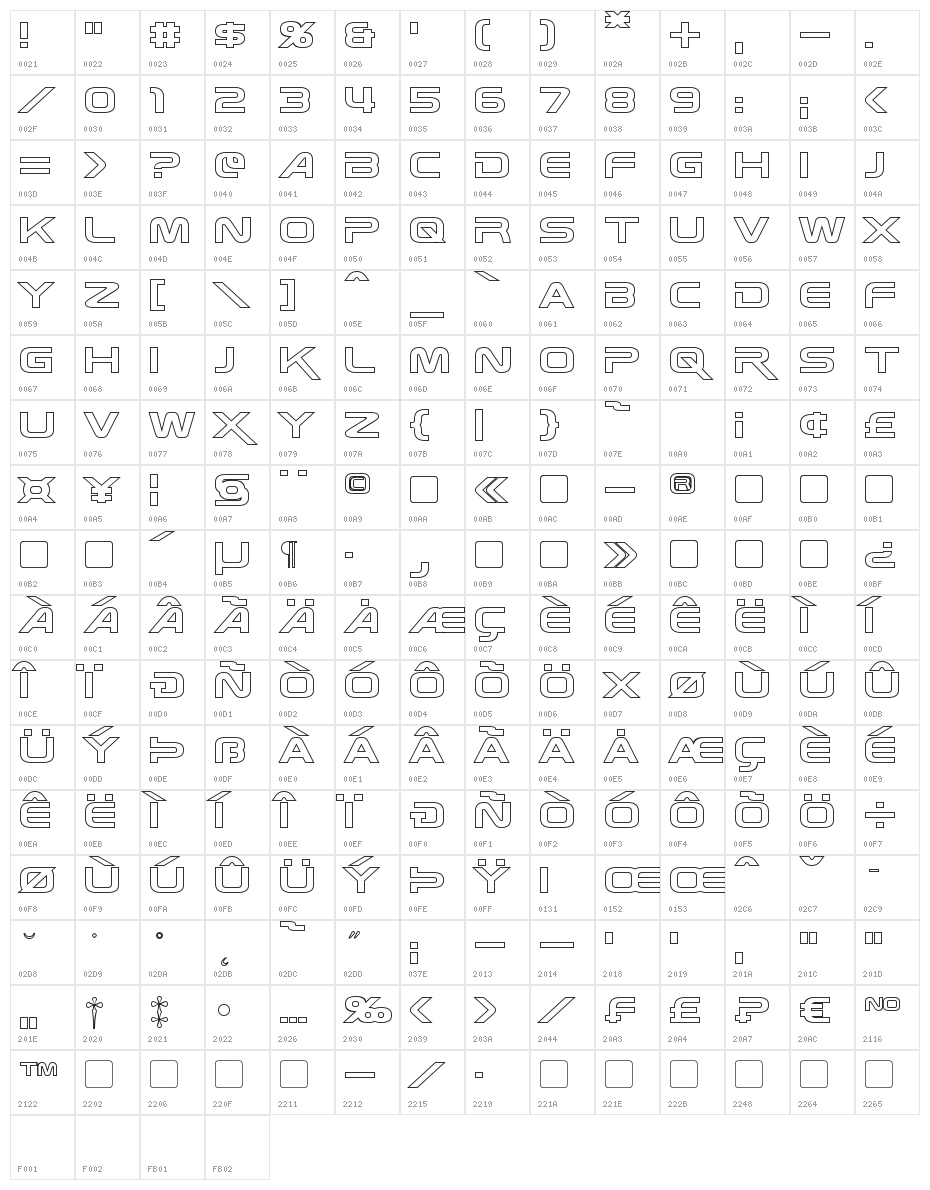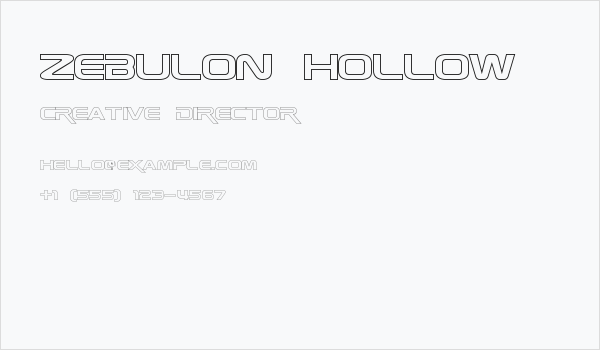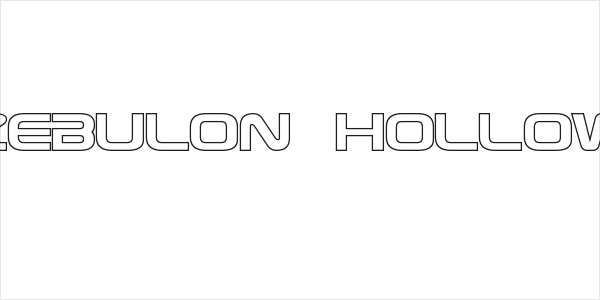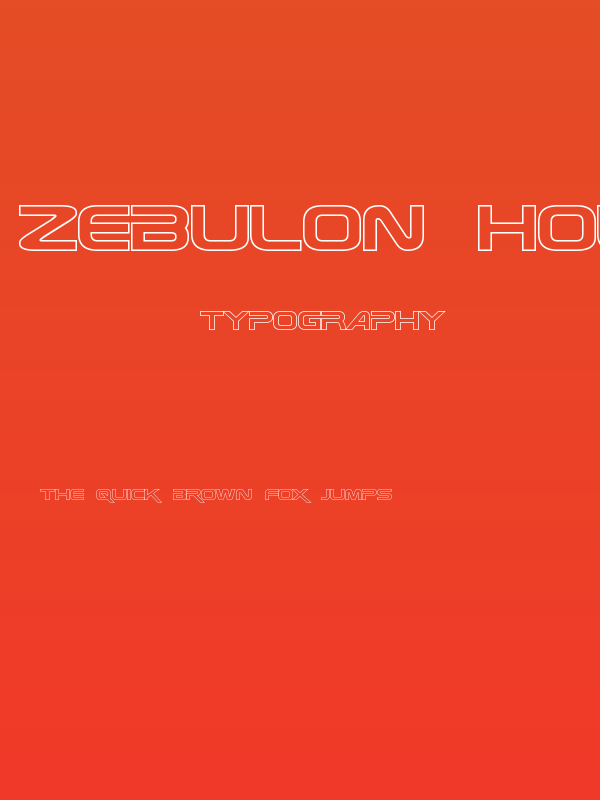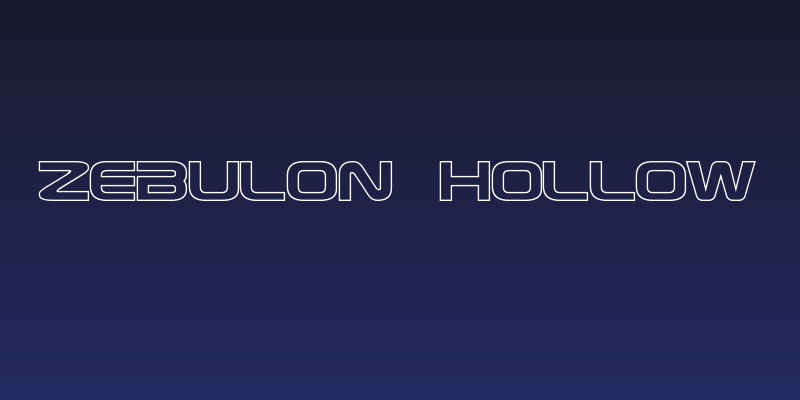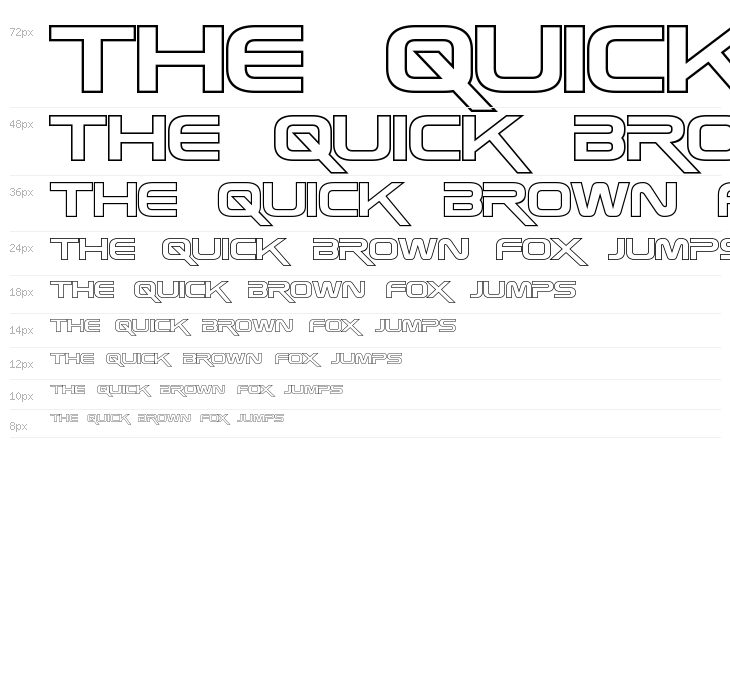
Zebulon Hollow Font
Zebulon Hollow Description
This font features a futuristic and geometric design with hollow characters, creating a striking and modern appearance. The uppercase letters are bold and angular, with a consistent line thickness that forms a hollow outline, giving it a unique and eye-catching look. The numerals and special characters follow the same design principles, ensuring uniformity across the character set. The font's style is reminiscent of digital or sci-fi themes, making it suitable for projects that require a modern and technological aesthetic.
| Proposed Projects | Ideal for sci-fi themed posters, video game titles, technology branding, and digital media projects. |